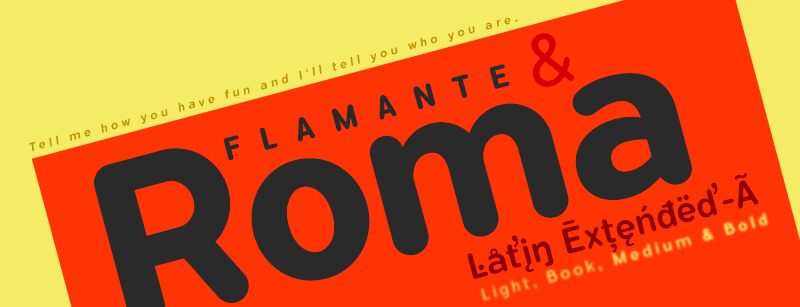
Flamante Roma is a group of eight corporate rounded typographies of geometric construction, rounded and neo-grotesque style, are fonts with an excellent readability for titles, short texts or for use in signage. The group of fonts is made up of 4 weights: Light, Book, Medium & Bold plus their respective italics.
Flamante Roma Medium
Flamante is a new family of Round fonts with four weights: Light, Book, Medium and Bold and their corresponding italic versions. Swiss-style fonts built on a 4 × 6 building grid formed with 144 x 119 units, two digits taken from the fibonacci and Perrin sequences, these measures define the width and height of the vertical and horizontal antlers and the overall proportion of the font. The metrics and kerning have been carefully set up for fluent reading in paragraph texts.